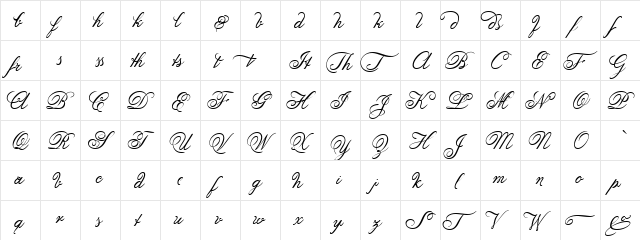
Anglia Script Enhancements Regular
Design Context for Anglia Script Enhancements Typeface
Anglia Script Enhancements flows with the natural rhythm of handwritten lettering, making it ideal for designs that call for warmth and personal expression.
Font Pairing: Combine Anglia Script Enhancements with a simple geometric sans for maximum contrast — the tension between flowing curves and clean structure is a classic typographic pairing.
Pro Tip: Use Anglia Script Enhancements for short runs of text — names, titles, or taglines. Extended body copy in script faces tires the eye quickly.